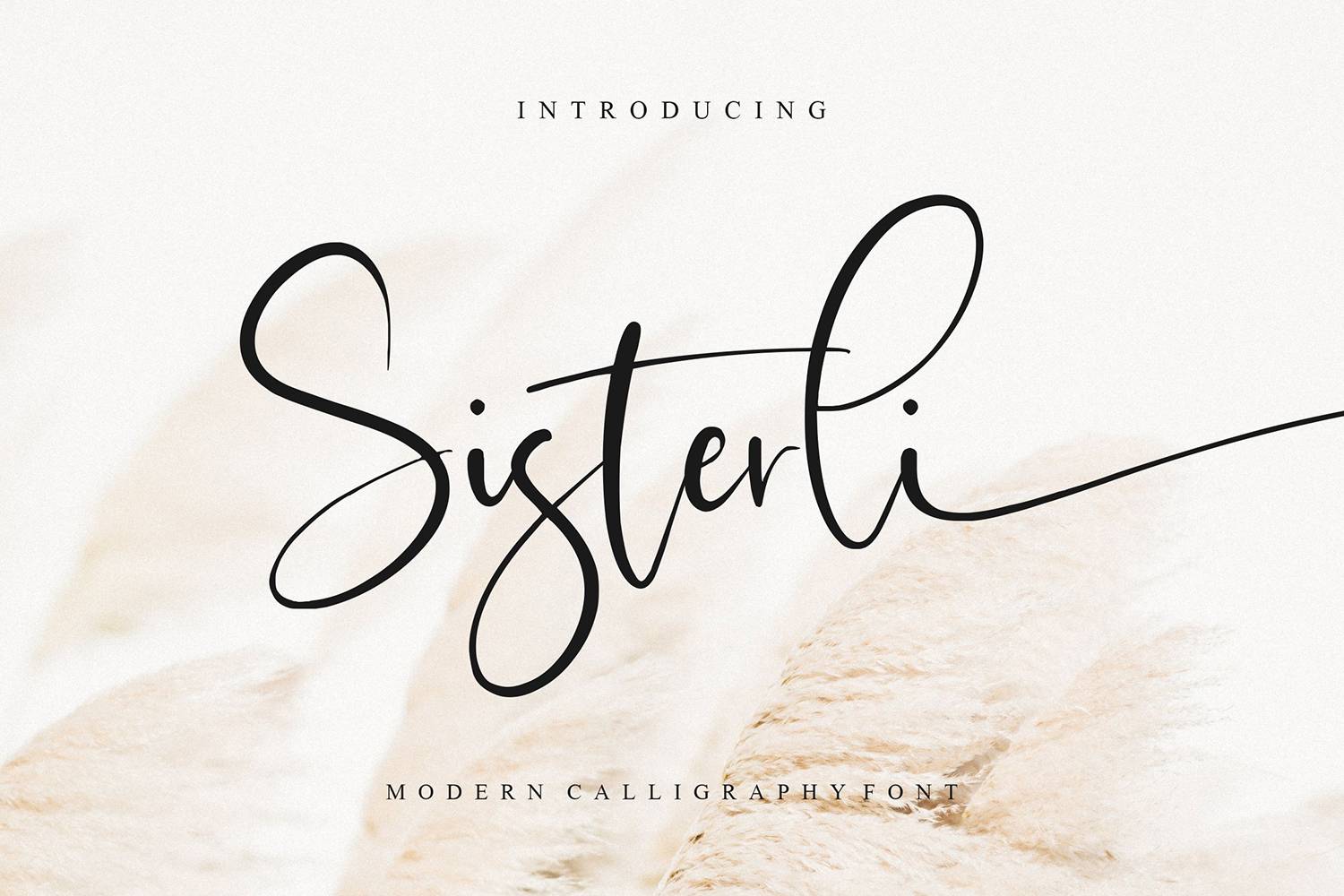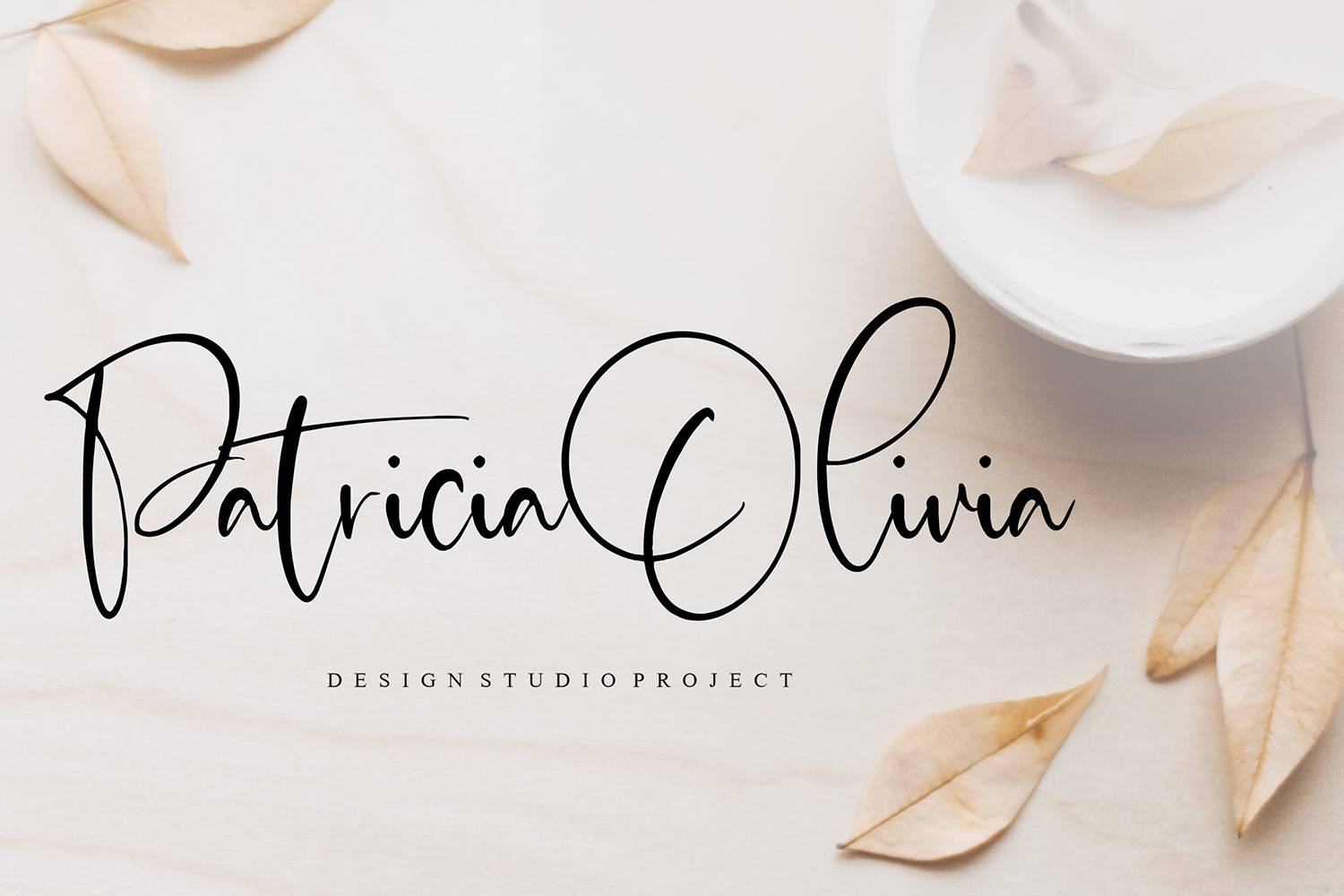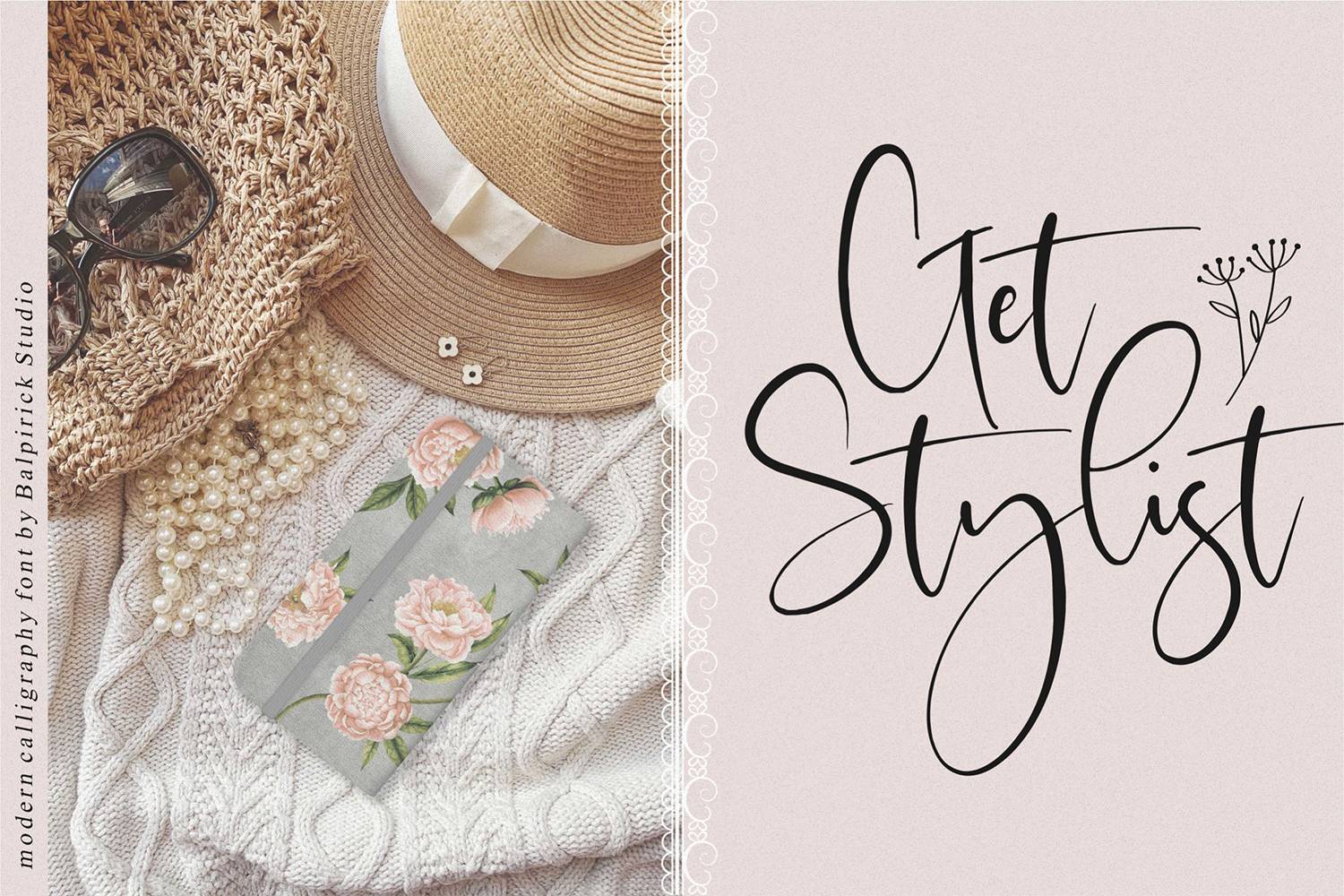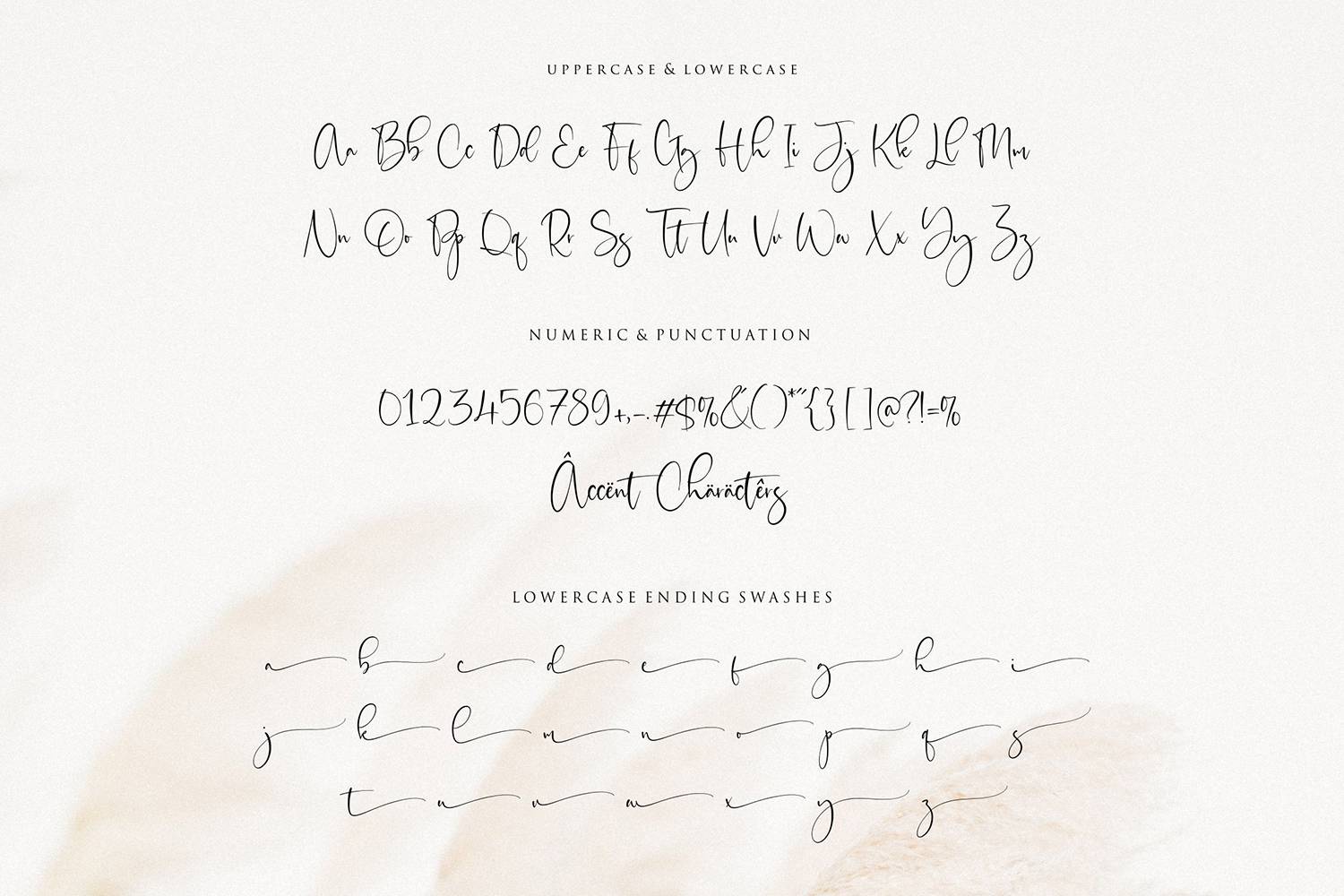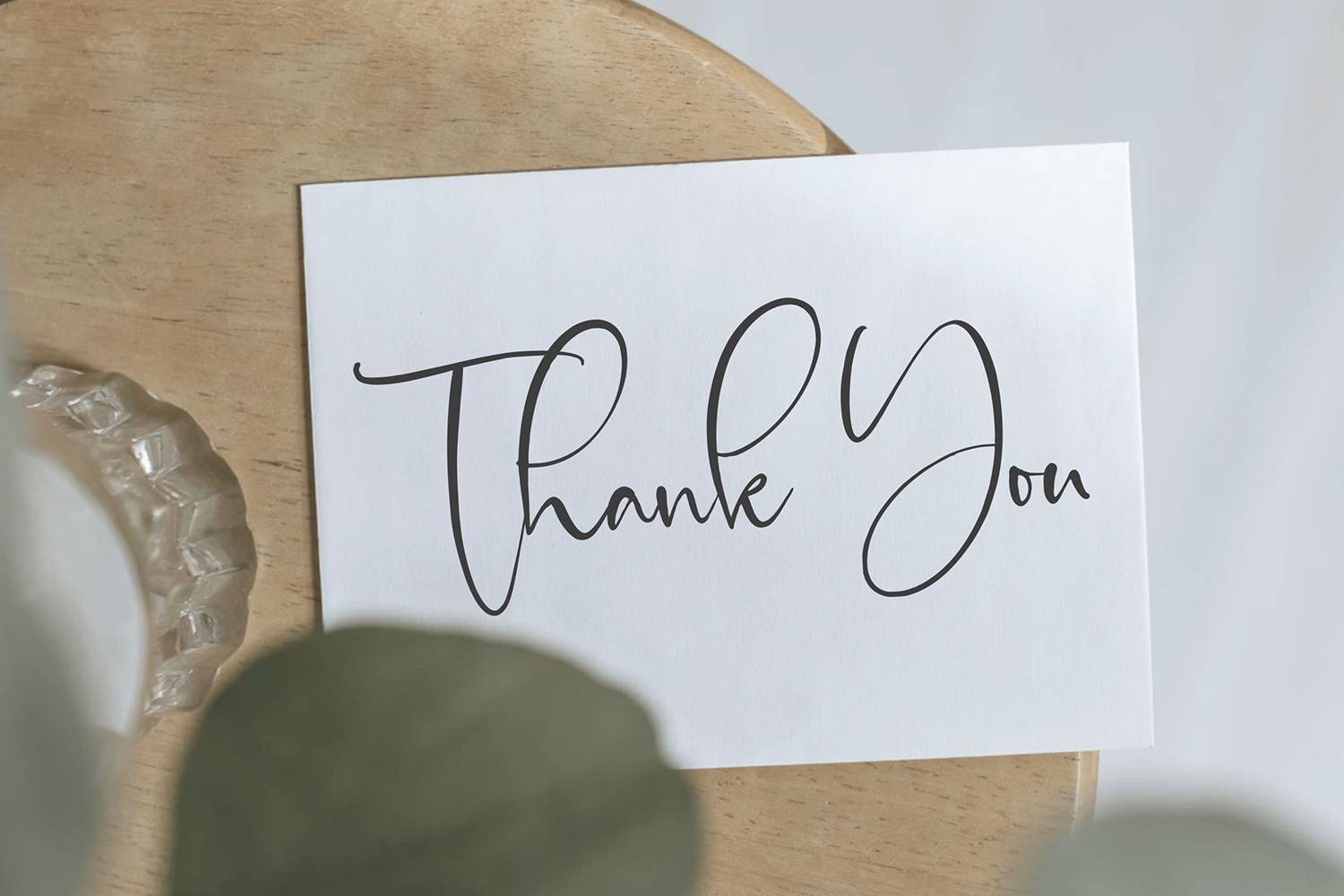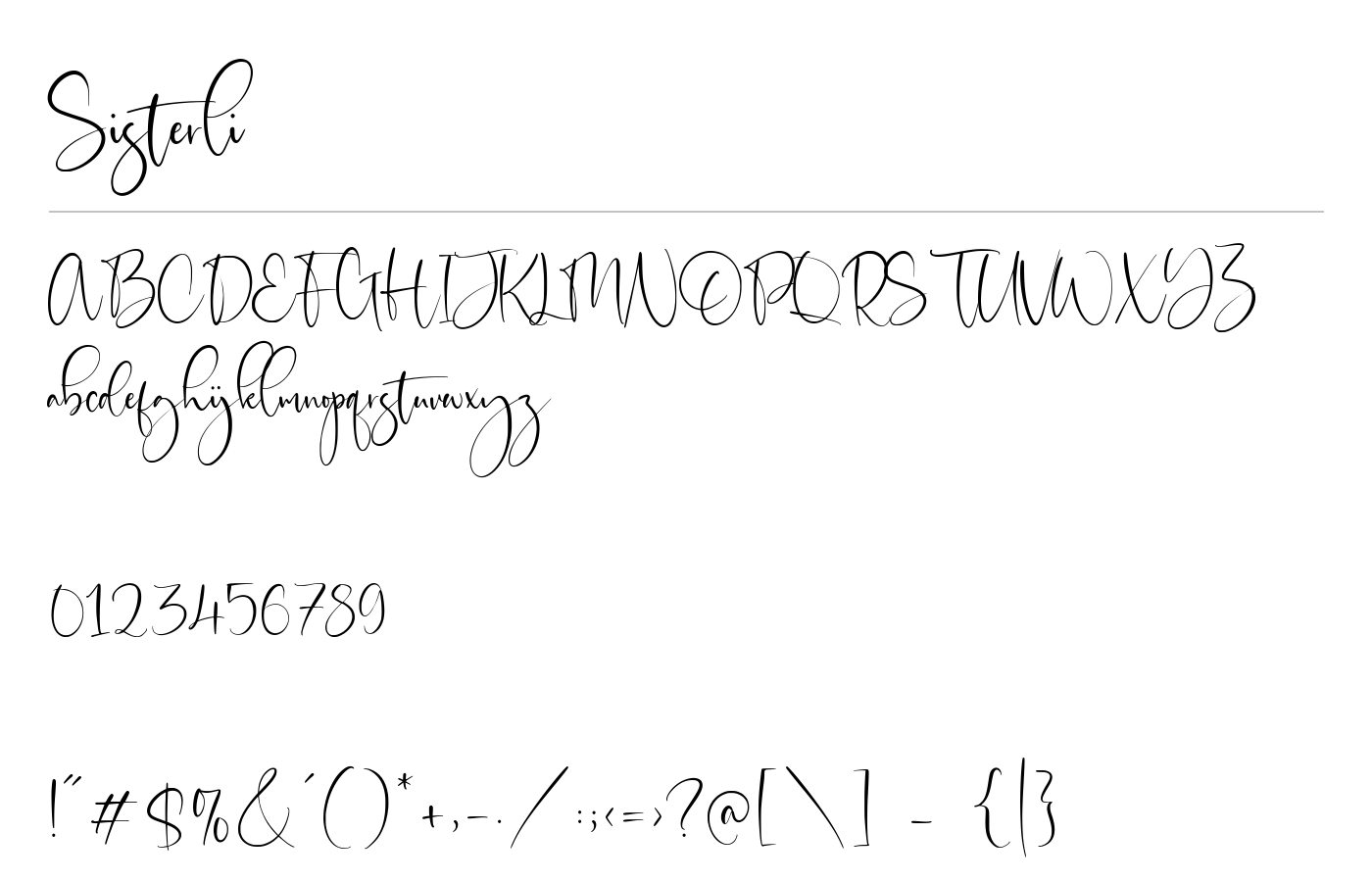
Sisterli is a delicate, elegant script font featuring thin, flowing strokes that mimic natural handwriting with a graceful, feminine touch. Its tall, slender letterforms with high contrast and whimsical loops make it perfect for stylish branding, wedding invitations, and sophisticated editorial designs. This font conveys a modern, romantic feel that works beautifully in contexts seeking a personal and refined aesthetic.
Sisterli Font
About Sisterli Font